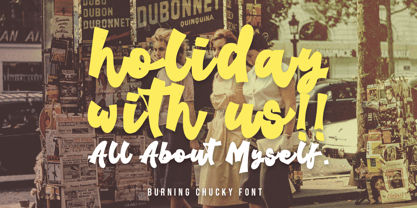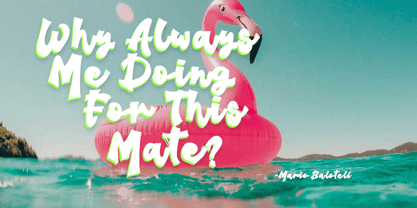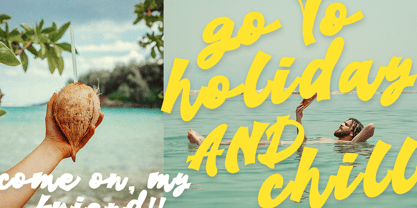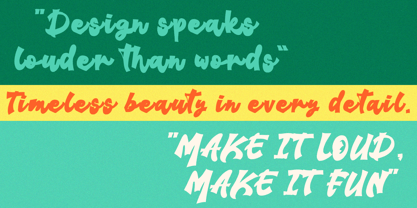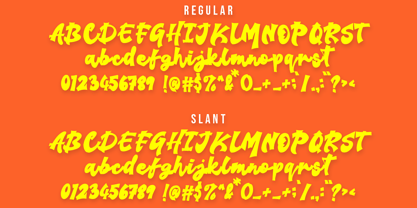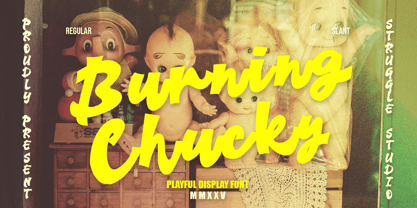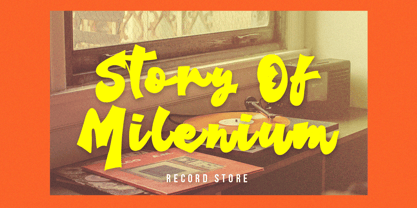
Burning Chucky
by Struggle Studio
The Burning Chucky Font Family was designed by Andri Kurniawan and published by Struggle Studio. Burning Chucky contains 2 styles and family package options.
Burning Chucky – Playful Display Font
Burning Chucks is a bold and energetic display font with a playful personality. Designed to capture attention, this typeface features thick, dynamic strokes that bring a lively, handcrafted feel to any design. Each letter carries a sense of motion and fun, making it perfect for standout visuals.
This font comes in two versatile styles:
Regular – A solid and highly legible option for strong, impactful designs.
Slant – A more expressive, italic-inspired style that adds movement and attitude.
Ideal for posters, album covers, merchandise, branding projects, vintage-inspired graphics, and any creative work that needs a fearless and cheerful touch.
Designers: Andri Kurniawan
Publisher: Struggle Studio
Foundry: Struggle Studio
Design Owner: Struggle Studio